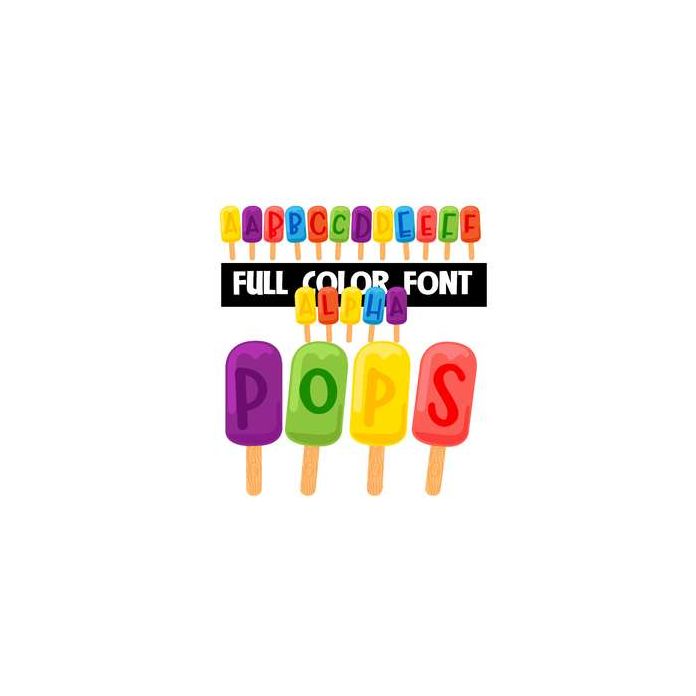
This full-color font features lettering on colorful popsicles. This font works best for titles, displays, posters and more. Please note color fonts will show as black in non compatible programs. This font type is compatible with Silhouette Studio.